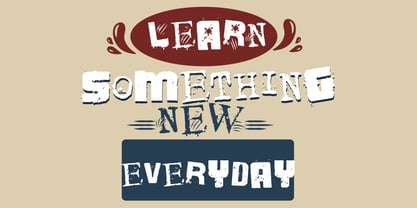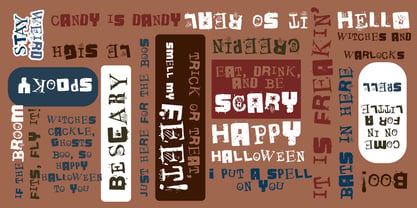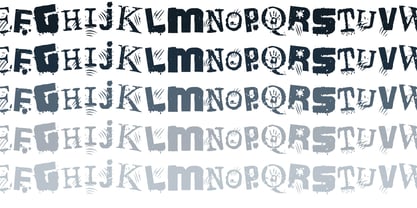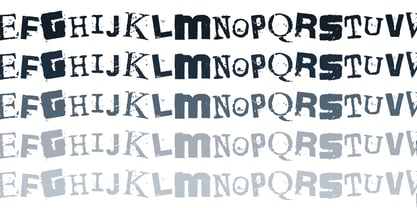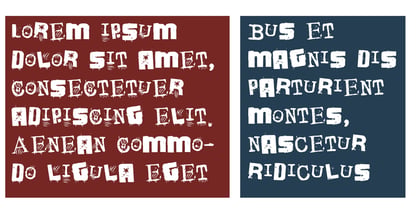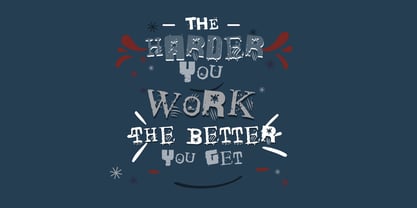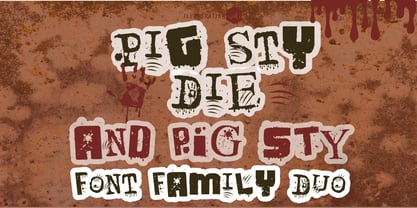
PN Pig Sty
A família de fontes PN Pig Sty foi desenhada por Illustration Ink e publicada pela Illustration Ink. PN Pig Sty contém 6 estilos e opções de pacote familiar. Saiba mais sobre esta família
This hand-crafted font duo features a very grungy, dirty, mixed style font with it's murderous sister. Hand-crafted fonts can be either formal or informal, and they can be used for a variety of purposes. Some of the characteristics of handwritten fonts include: The letters are not perfectly uniform in size or shape. There may be slight variations in the spacing between letters and words. The font may have a "wiggly" or "squiggly" appearance. The font may be difficult to read at small sizes. Handwritten fonts can be a great way to add a casual touch to your designs. They can also be used to create a sense of nostalgia or whimsy. However, it is important to choose a handwritten font that is appropriate for the project you are working on. A formal handwritten font may not be appropriate for a casual invitation, while an informal handwritten font may not be appropriate for a corporate document.